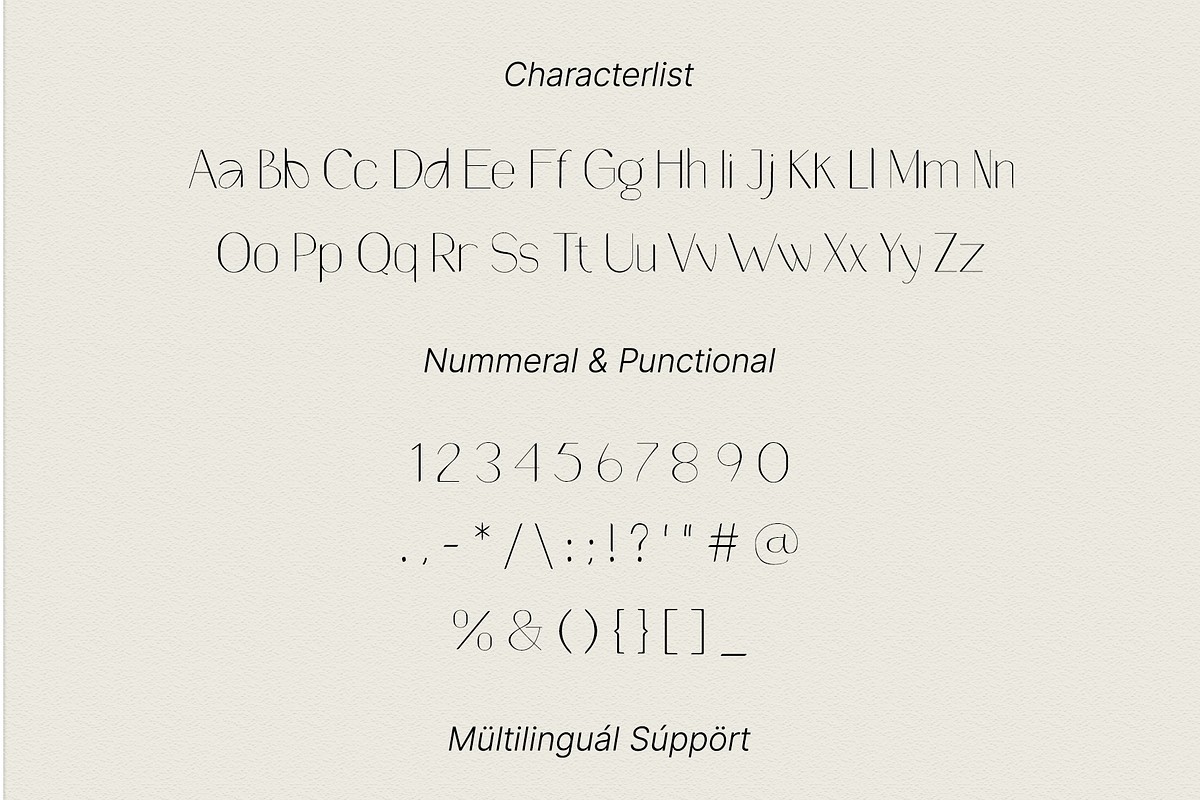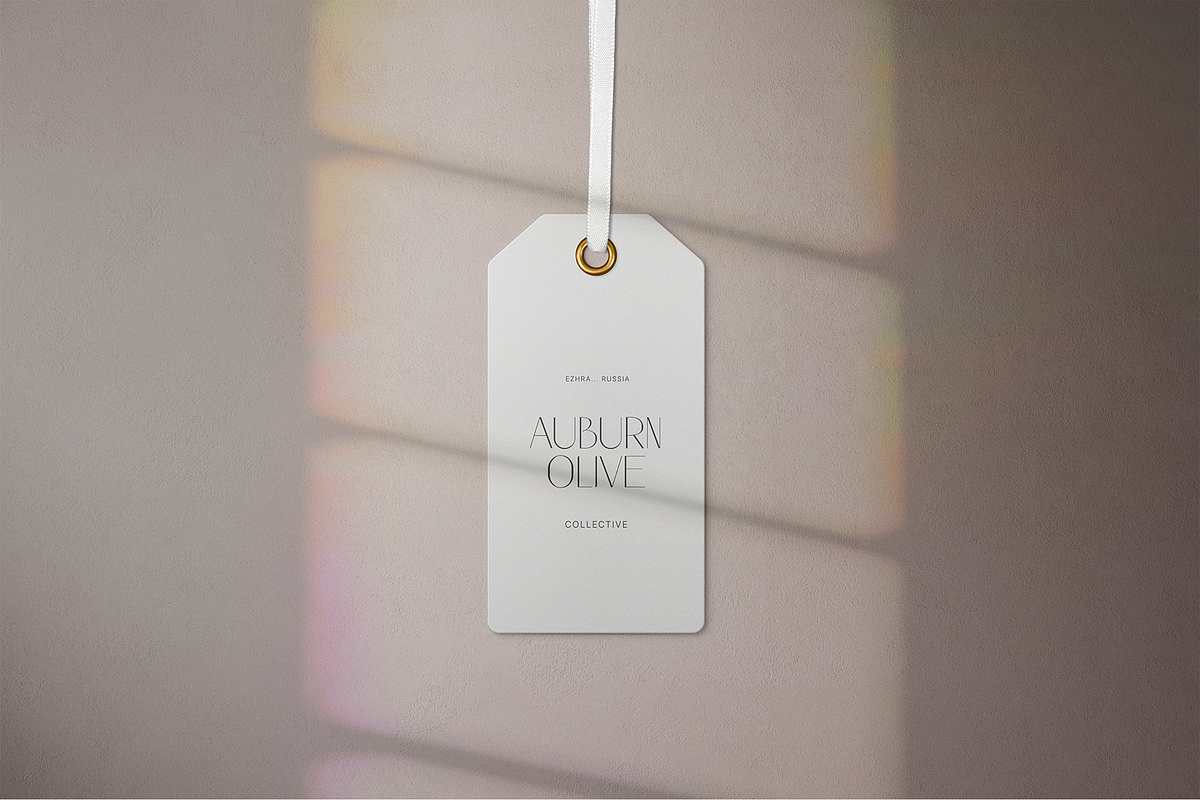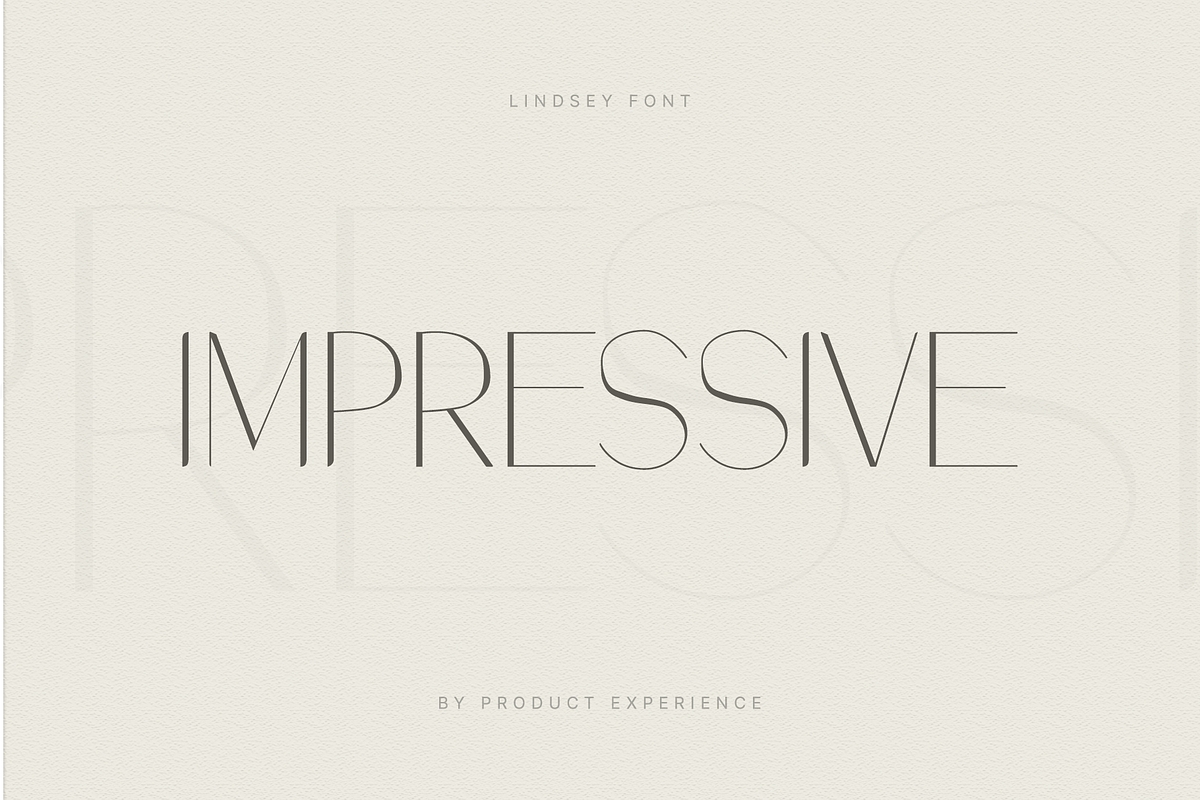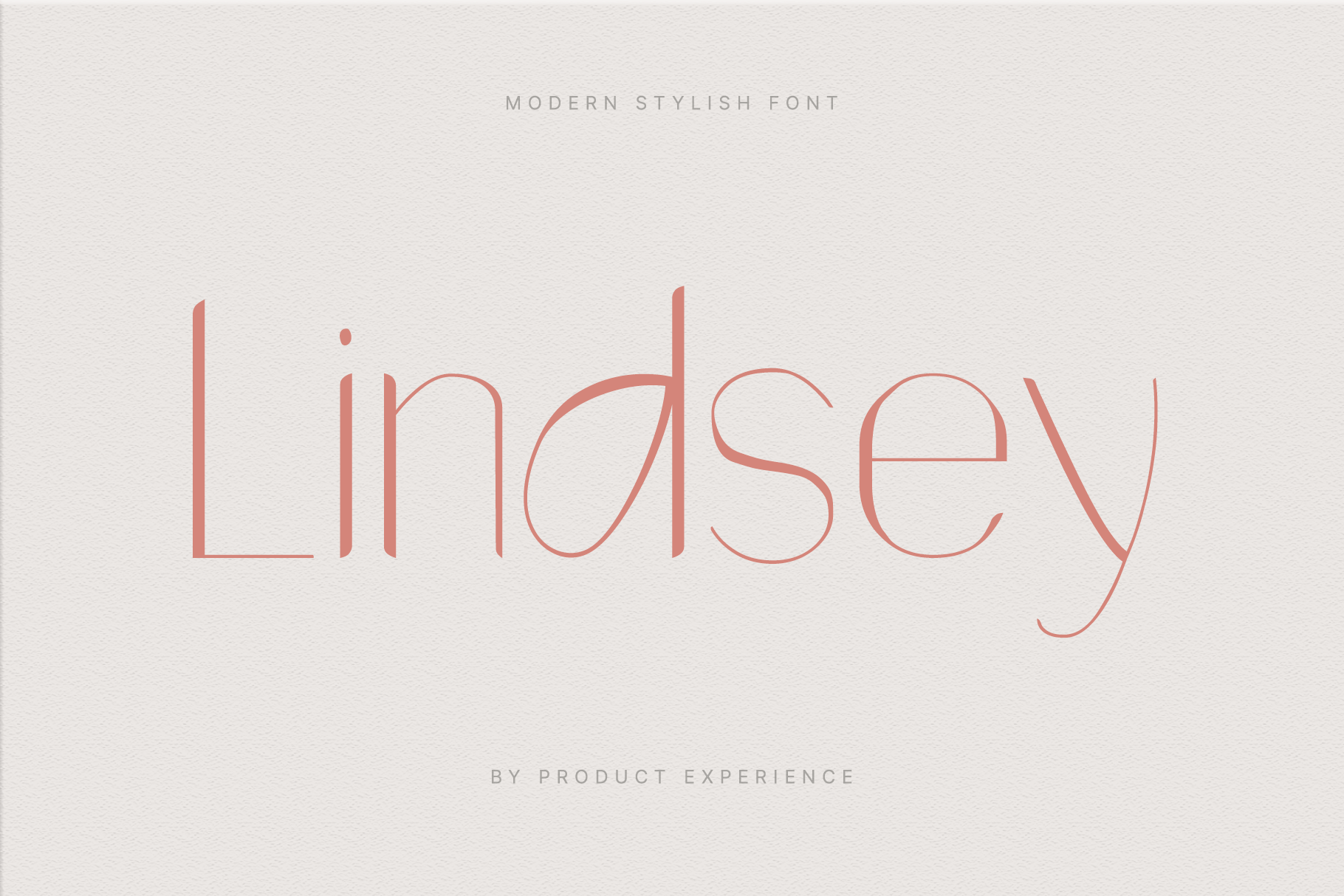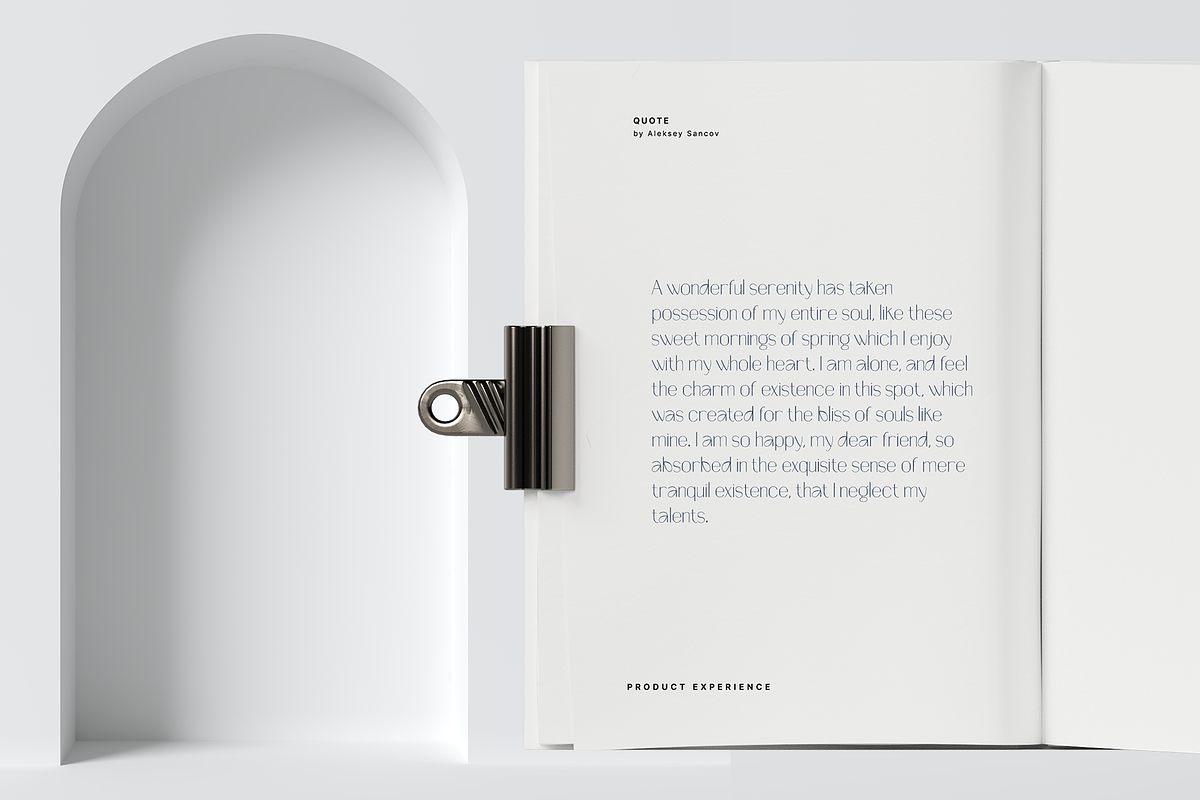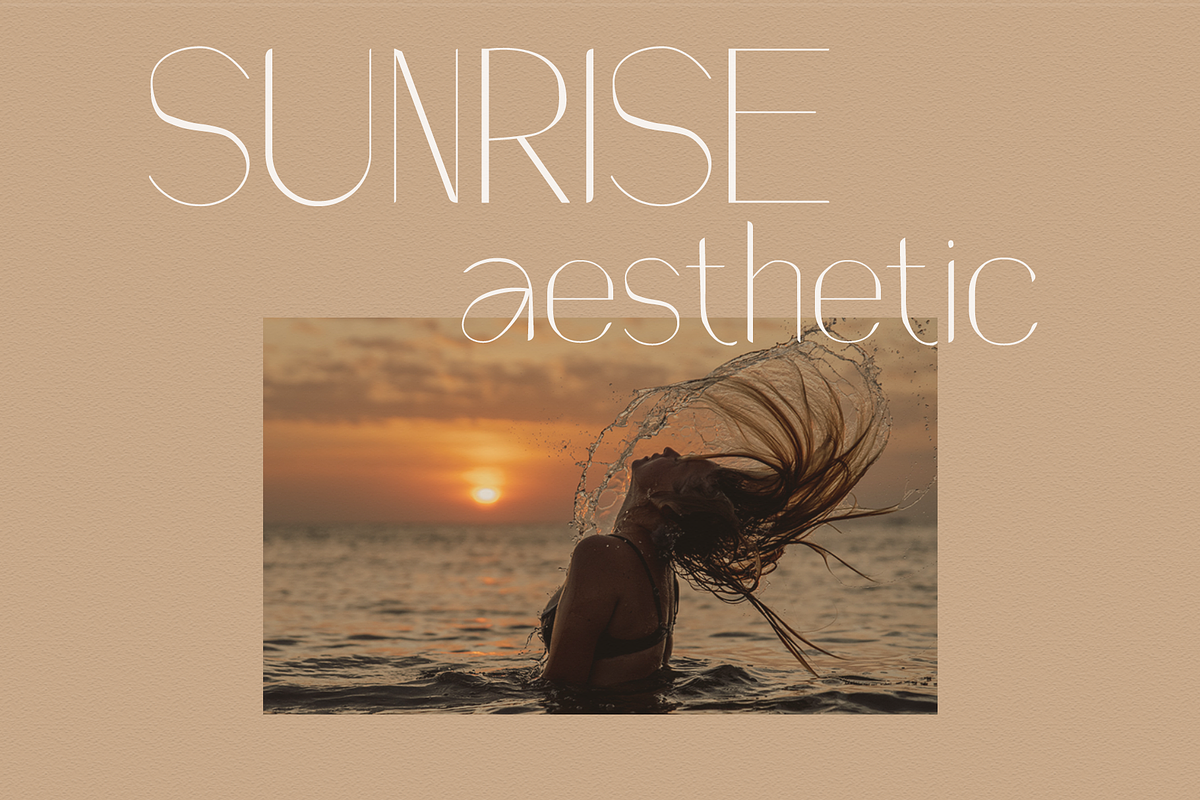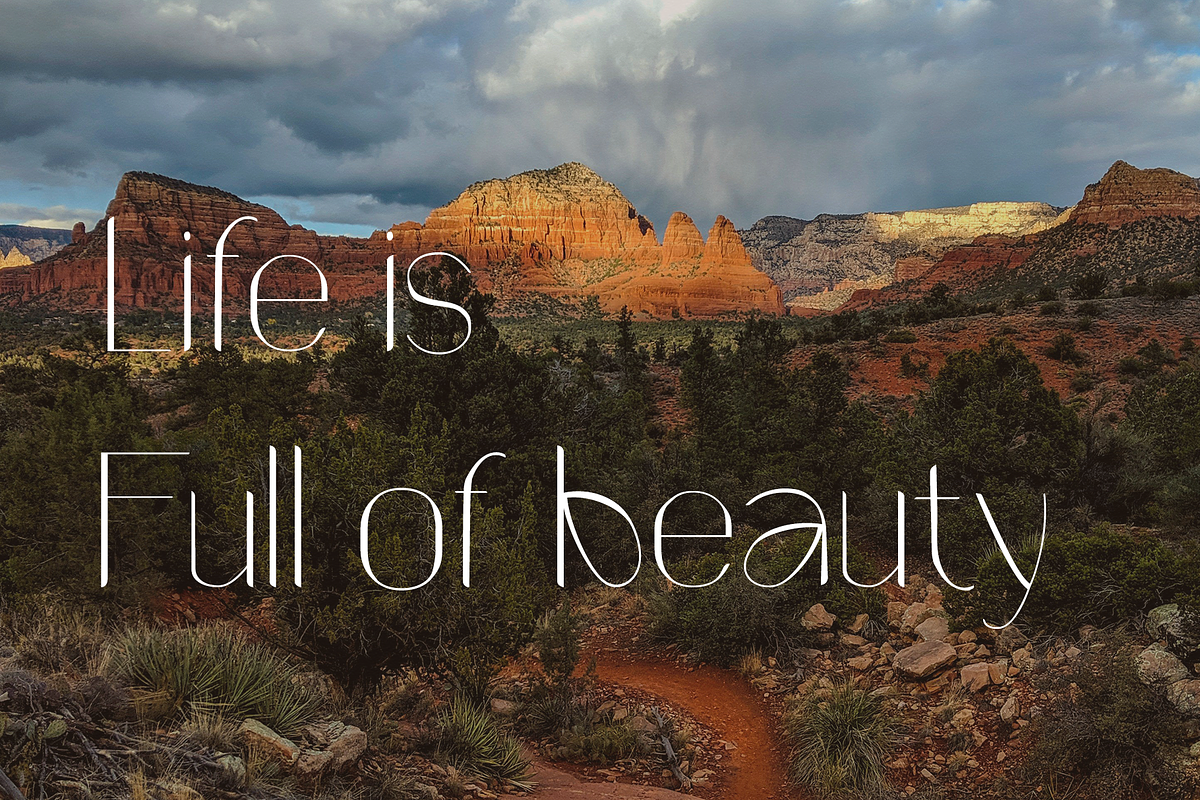
Lindsey - Modern Stylish Font
Lindsey is a Modern Stylish Font.
In a new generations, we analyze that any designer or brand owner need to make their brand standout. As our focus that analyze any typeface that helps to leverage any logo design to look more modern and unique. We prepared this font with any unique characters to help you create unlimited variations for your creative needs.
- Punctuation and Marks